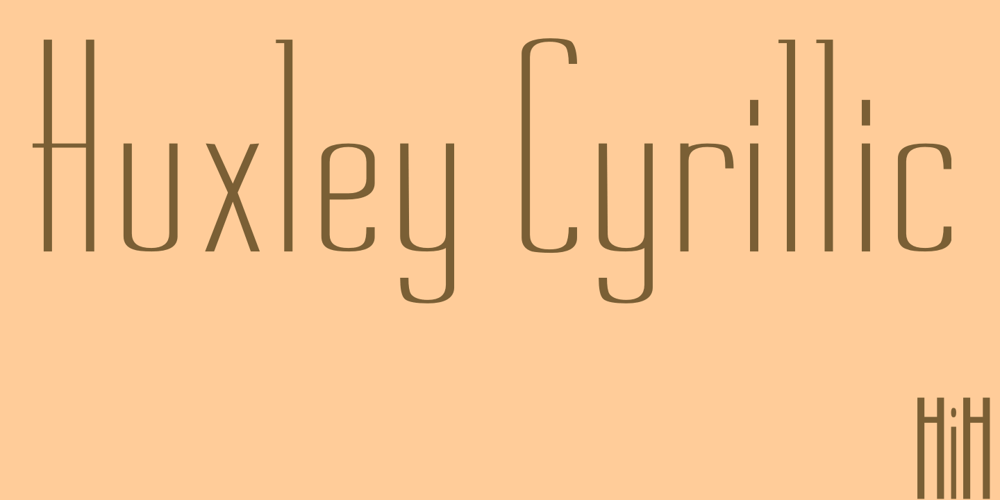
Huxley Cyrillic Font Family was designed by published by HiH. Huxley Cyrillic contains 1 styles and family package options. Huxley Cyrillic is based on our Huxley Amore Bold, retaining all the Western and Central European characters of the latter, while adding upper and lower case Cyrillic characters. Huxley Cyrillic, like Huxley Amore, is visually simple and direct and yet sophisticated and unexpected. Those are the qualities that give it such freshness in so many applications. This font is intended for display use. It is highly condensed and is therefore difficult to read below 18 points. It works well at 36 points, but really works best at 48 points and larger. Huxley Cyrillic has 499 glyphs. I think we should have made at least one more!